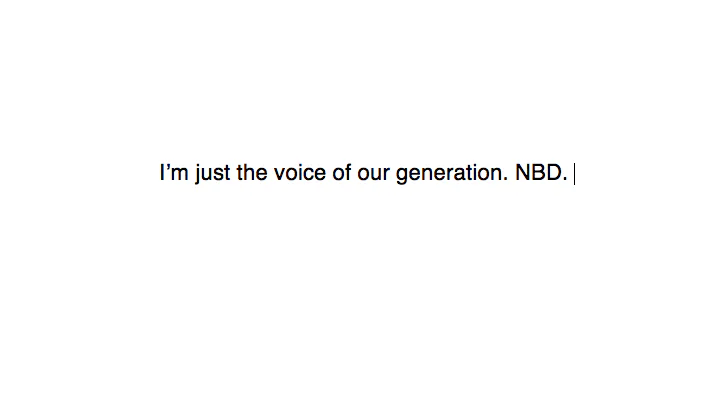
Don’t think for a second that the font a person uses is coincidental. It’s not 1983 anymore. We don’t just have, like, 12 fonts to choose from anymore. The font you select says a lot about you, if not everything. I’m serious.
In my MFA program, there’s this really nice guy who always brings in poems typed in Comic Sans. All the time. We first thought maybe it was an accident — maybe his hand just slipped and tragically clicked “Comic Sans.” But by the third workshop it became apparent that he very much identified with Comic Sans, and Comic Sans it would be. Since it was hard to concentrate on his poems, due to the atrocity of Comic Sans and the distraction it naturally lends, I made a small note on his page, “Maybe use a different font?” He either didn’t read my feedback (DICK), or didn’t really care about what other people thought of the font he used. Which I almost admire. If it were about anything but Comic Sans.
Finally, someone just couldn’t take the retched font any longer and outed him during a workshop session. It turned into an intervention. The guy did not want to lose his beloved font. And he didn’t — he kept using it. Bless his audacity, I guess.
Since it's NaNoWriMo, we've all had writing on the brain. But have we given a second thought about the font we use and what kind of message it sends out? What it says about your personal brand? These fonts are not merely just fonts — they're essentially extensions of ourselves. Without further ado, here they are:
Times New Roman
You are methodical. Some even call you a formalist. Your favorite novels are by Hemingway because you love his brevity. You have recently become obsessed with clarity and cubism, and you are currently writing a novel about WWII and one woman's lost love. It's going well because you're the type of person who set an alarm for 5 a.m. and writes until noon.
Cambria
You are either incredibly laid back, or you don't know how to use Word. Either way, you're the type who recycled stories in your MFA program because you were too creatively exhausted (read: lazy) to keep churning out new material. You enjoy writing about your love life and break-ups. You've probably compared your boyfriend to a rose with thorns.
Book Antiqua
If you don't have an Ivy League education, you might as well. You enjoy the Classics, and when you're not rereading Pride and Prejudice for the fifth time, you are reading poetry and sipping espresso on a park bench. Probably in Brooklyn, but dreaming of London.
Courier New
You might or might not be a screenwriting major, but either way, you enjoy using Courier New because it makes you feel like you're using a typewriter. Most of your stories are set in the '50s. You write mostly crime noir and all of your male protagonists wear fedoras.
Helvetica
You majored in PR and Marketing, but everyone told you that you need to write a book (so you say), so here you are. Writing an e-book. It will be about L.A. and the fashion industry, and how social media has changed the way we look at ourselves.
Arial
You writing aesthetic has been described as "choppy," and "desperately needing more imagery." Your literary heroes are Bella Swan and Katniss Everdeen. You're probably a copywriter.
Century Gothic
You write exciting YA novels or stories about magic and dragons and teen love and maybe even vampires! You hope that your book will one day become a movie, like The Fault in Our Stars.
Curlz
You are a children's book writer, and if you weren't doing that you would probably be a preschool teacher. If you had to choose a fictional character you relate to most, it would have to be Miss Honey from Matilda.
Futura
This person is most likely a blogger. You can follow her on Twitter, Facebook, Insta, Snapchat, Wordpress, Tumblr, YouTube, and Blogspot.